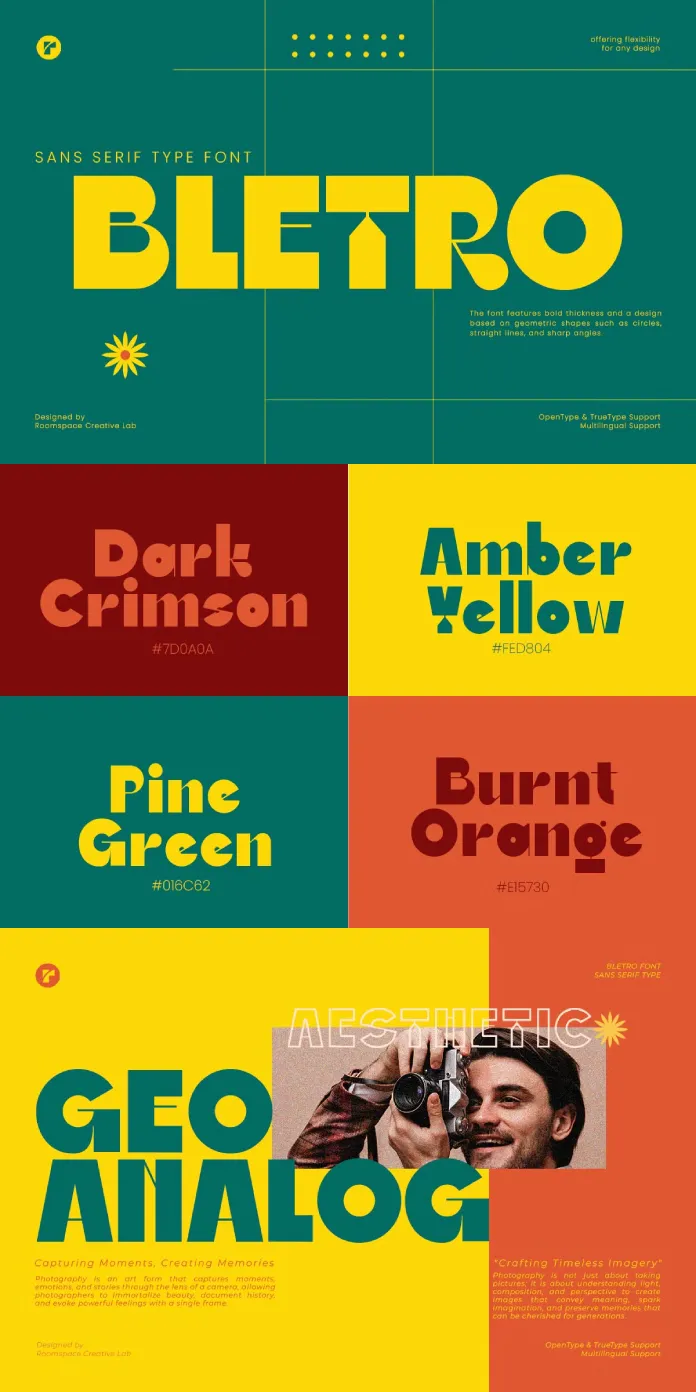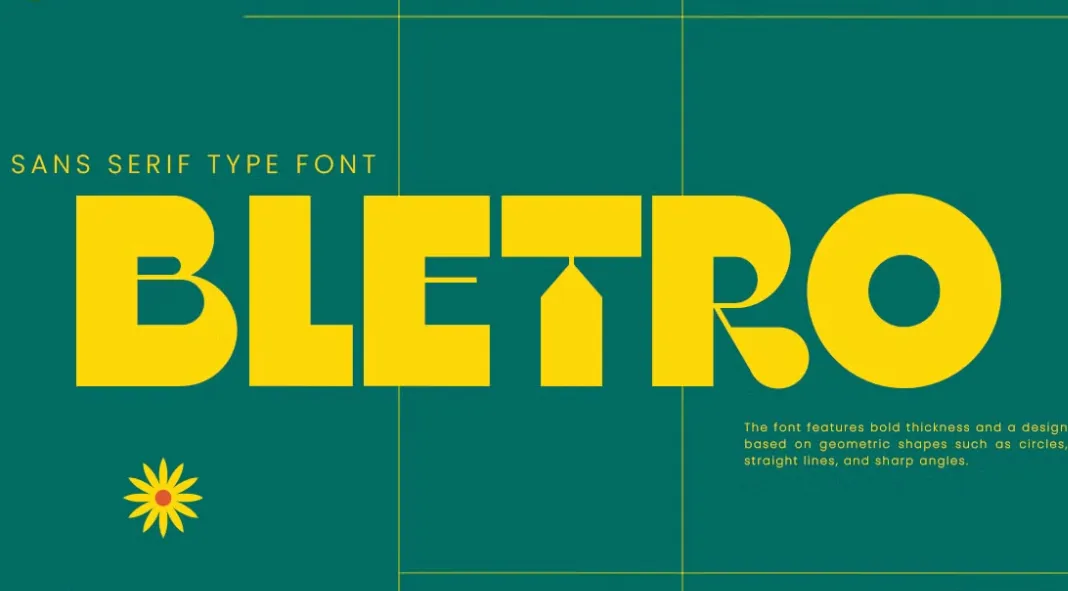
Bletro: The Cool Kid on the Block
So, Bletro, huh? It’s a sans-serif display font. Do you know those fonts that are meant to grab attention? This one does. You see a lot of those, right? But Bletro, it’s something else. It’s from Roomspace. Ever heard of them? They make some pretty nice stuff.
Bletro has this cool combo thing going on. It’s modern, but it also has a retro feel. It’s like it pulled inspiration from the past. What era do you think it channels? The designer used geometric shapes for this one. It’s bold, too. Super bold. It’s got sharp angles, which gives it a lot of character.
Bletro isn’t a font you’d use for a whole book. It’s way too much for that! But, for big, impactful stuff, it’s perfect. Think headlines, logos, or branding materials. Maybe even a creative poster? Those are good ideas for it, right?
It’s the kind of typeface that screams, “Look at me!” You could use it if you want a vintage vibe. You could use it if you want something modern. It just works, somehow. It’s an elegant and stylish design. That’s pretty versatile, isn’t it?
It’s also great for graphic design. Need a decorative font? Bletro. Want something minimalist? Bletro. How many fonts do you think you need in a single project? What about fonts that work across different design platforms?
This font can be a branding font. Think about a cool logo with Bletro. Imagine a big, bold poster using it. Or a social media campaign. It definitely works for those uses. Have you ever noticed the font that different brands use? Do you think this font is unique enough for a brand to use?
Now, the tech stuff. Bletro is multilingual. That means it works with different languages. Good for global projects, right? It is also compatible with OpenType and TrueType. Does knowing the technical format change how you feel about a font? It has a clean, aesthetic structure. It looks professional and is easy on the eyes. It’s a well-made, well-considered font. Wouldn’t you agree?
You could use it to make your brand look super cool. You could design a poster that everyone will notice. Or, you could have a social media post that people stop to look at. Bletro can do all of that. It’s a font that leaves an impression. What kind of impact do you want your work to have?
So, there you have it. That’s Bletro. What do you think? Pretty cool, right? I think this font is one to keep an eye on. You should try using it sometime. What would you design with it?